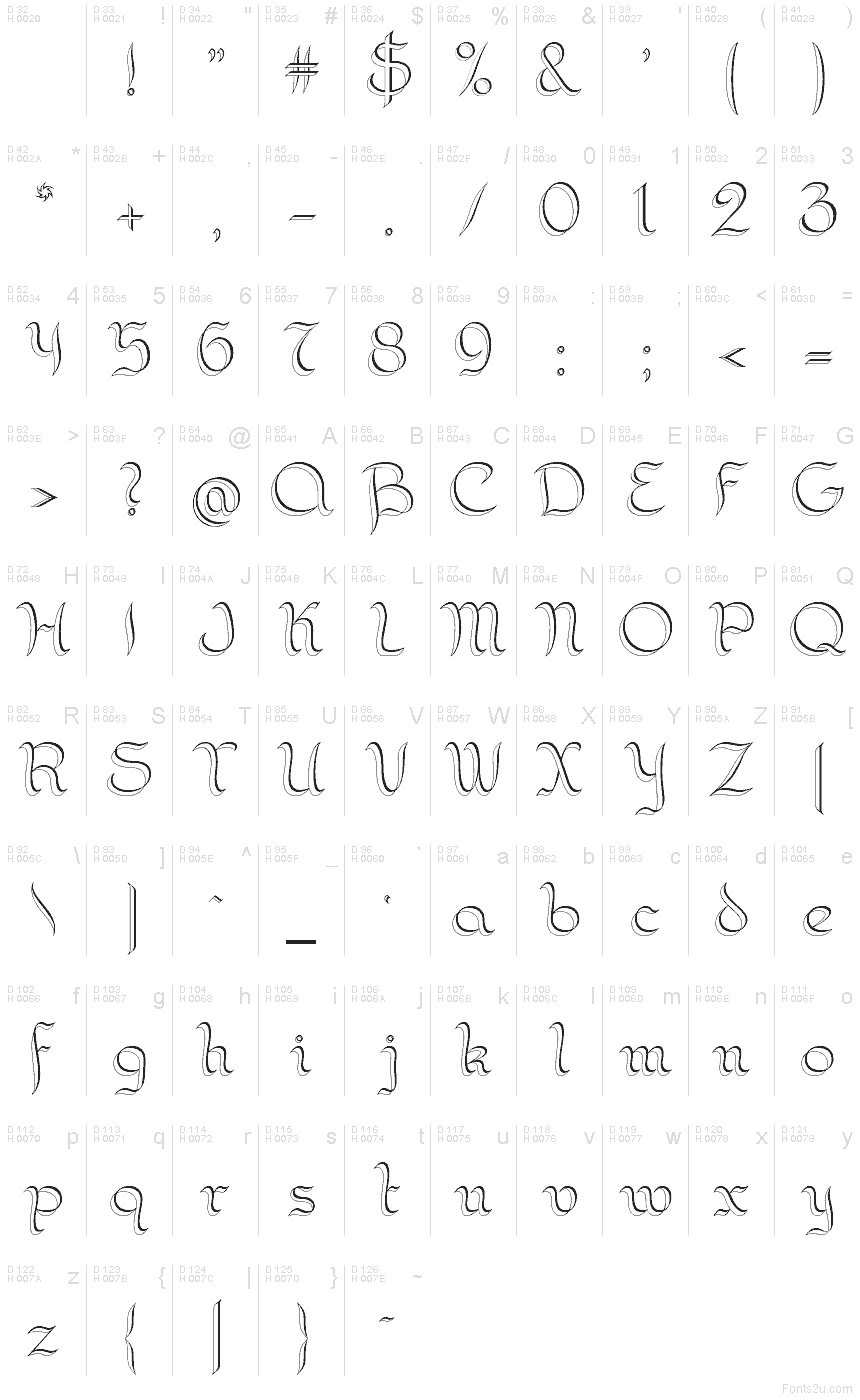
Calami Regular
Calami font by Yves Michel is a free calligraphy font digitized from an artisanal pen. It carries a refined elegant appearance and striking ornamental style visible through smooth strokes and delicate contrast. Calami is characterized by its flowing lines, lively energy, and soft arabesques which allow it to deliver a certain special visual charm.
This font is inspired by an exercise in penmanship from "The Zanerian Manual of Alphabets and Engrossing," a book digitized by David Grimes at https://masgrimes.com/